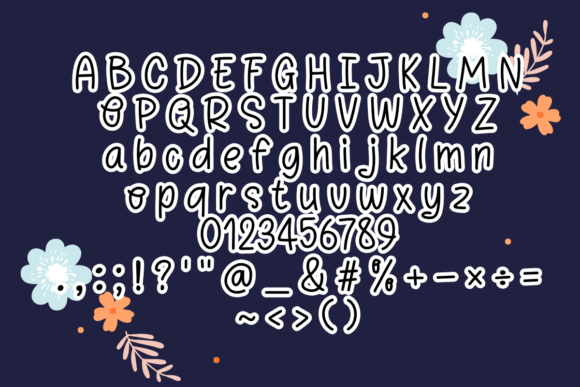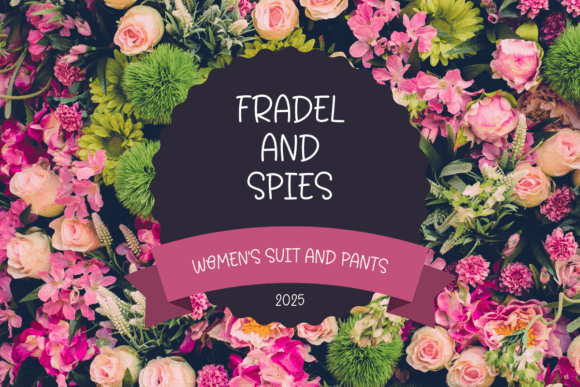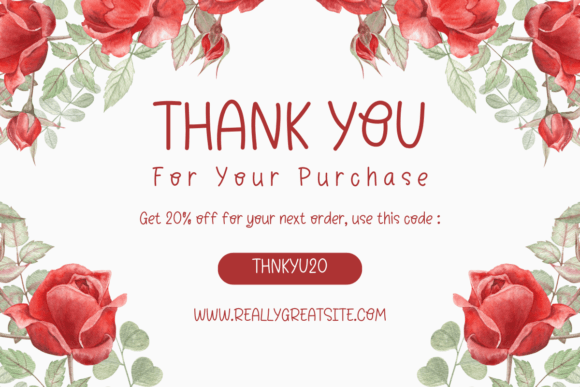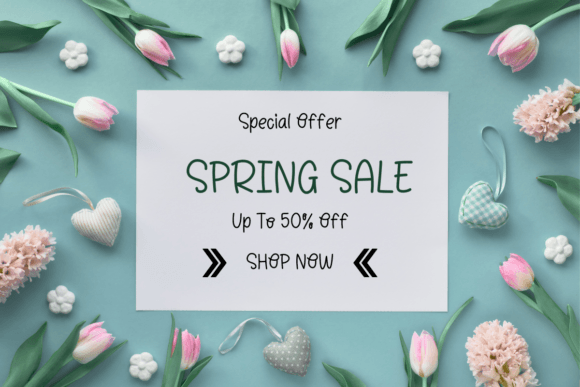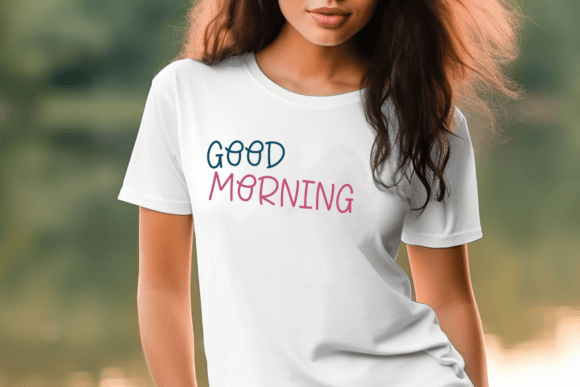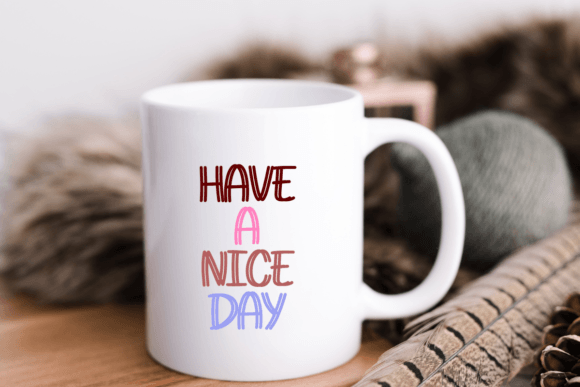
Introduction to My Mom Font
Do you remember the feeling of scribbling notes to your mom in a favorite notebook or writing a heartfelt letter to her on a special occasion? Those moments are etched in our memories, and what better way to recreate that warmth than with a font that embodies the love and care of a handwritten note? Introducing My Mom Font, a beautiful, high-quality handwritten font designed to bring a personal touch to your creative projects.
Key Features of My Mom Font
- High-quality design resource with a unique, handwritten style perfect for creative projects.
- Unique characteristics include subtle imperfections and variations in letterforms, giving it a personal and handcrafted feel.
Honest Review: My Mom Font
- ✨ Unique and quirky design that adds a personal touch to any project
- ✨ Highly legible and clear, even at smaller font sizes
- ⚠️ Limited character set, which may not be suitable for projects requiring a wide range of characters
Tips for Getting the Most Out of My Mom Font
For optimal results, use My Mom Font on a transparent background to achieve a clean and modern look. Experiment with different font sizes and styles to enhance the visual impact of your design.
My Mom Font is ideal for a variety of design projects, including social media graphics, blog posts, and business cards. Its versatility and high-quality design make it a valuable resource for designers and non-designers alike.